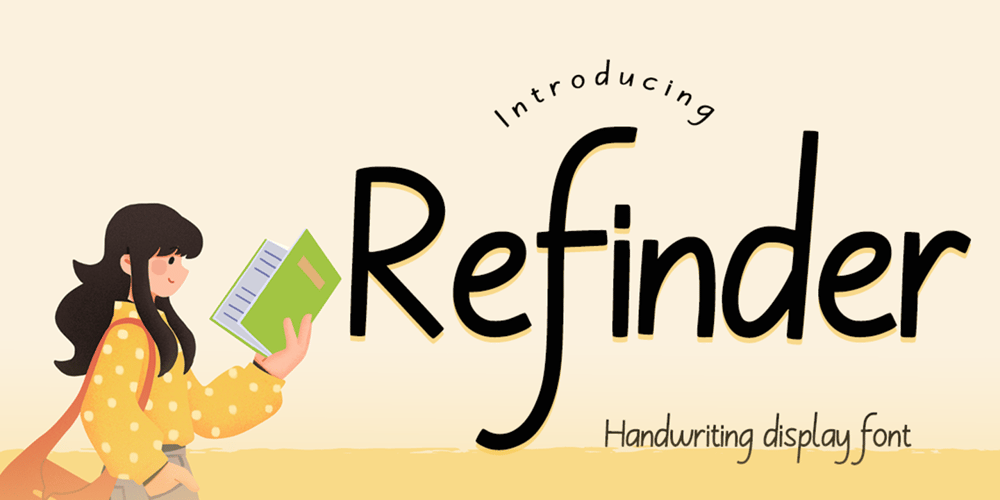
Refinder Font Family was designed by Muhammad Zaini and published by Cocodesign. Refinder contains 1 styles and family package options. Feast your eyes on Refinder, a versatile typography tool custom-built to infuse a splash of style and sophistication to your design arsenal. Perfectly tailored for elegant logotypes, striking brand identities, engaging packaging designs, inspiring quotes, dynamic music posters, casual t-shirts, and compelling book covers. Refinder offers a complete range of uppercase, lowercase, numerals, punctuation, symbols, and priority multilingual support to cater to your diverse design needs. Never hesitate to reach out for support or inquiries, your artistic journey means the world to us. Here’s to great design with Refinder!